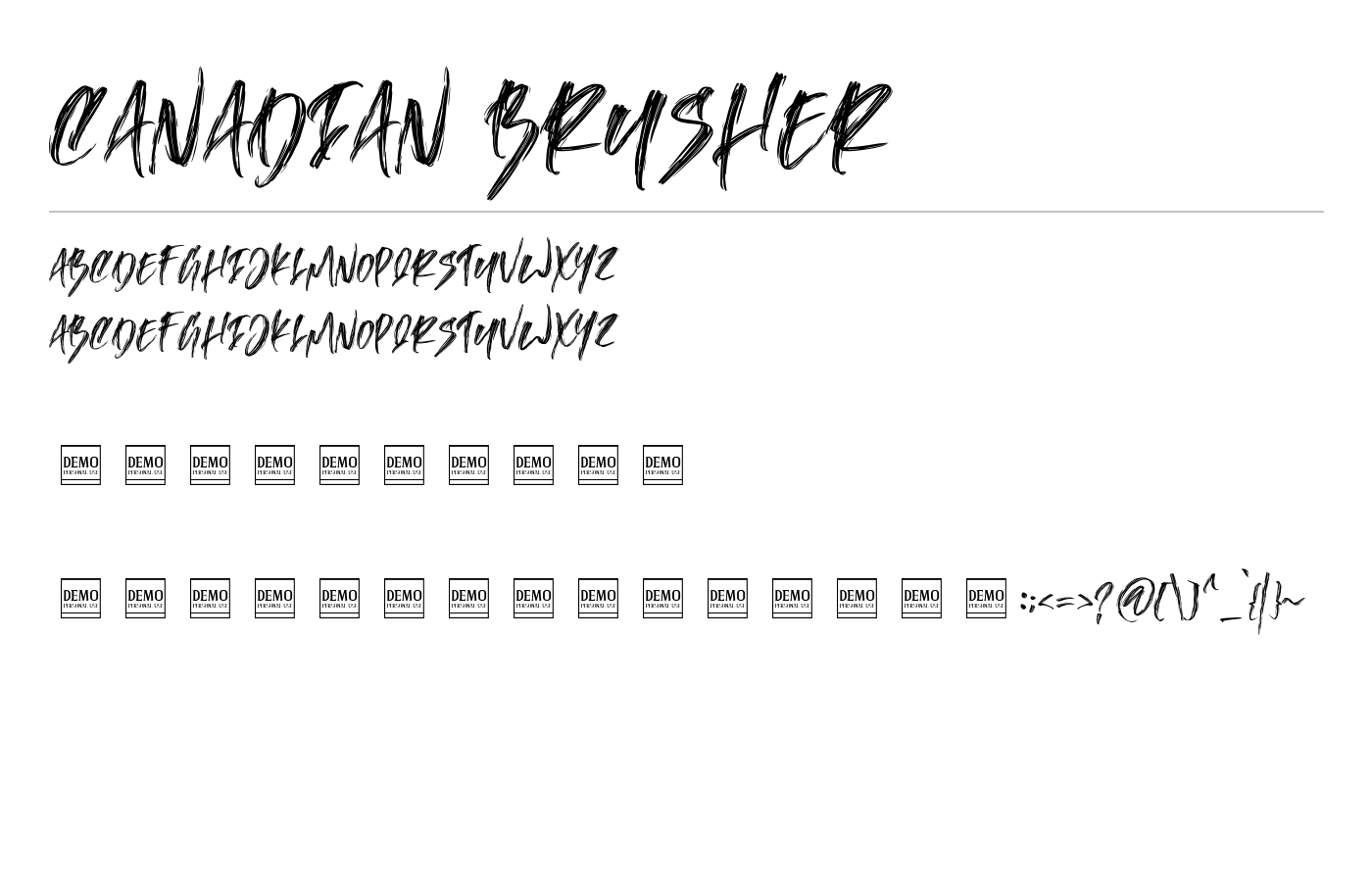
Canadian Brusher is a dynamic brush script font that captures a bold, hand-painted look with energetic, textured strokes. Its irregular, slightly rough edges and tall, narrow letterforms create an informal yet artistic feel, perfect for adding a personal and creative touch to branding or design projects. This font works especially well in headlines, logos, and posters where an expressive, handcrafted style is desired.
Canadian Brusher Font
About Canadian Brusher Font
| Designer | Anton Cahyono |